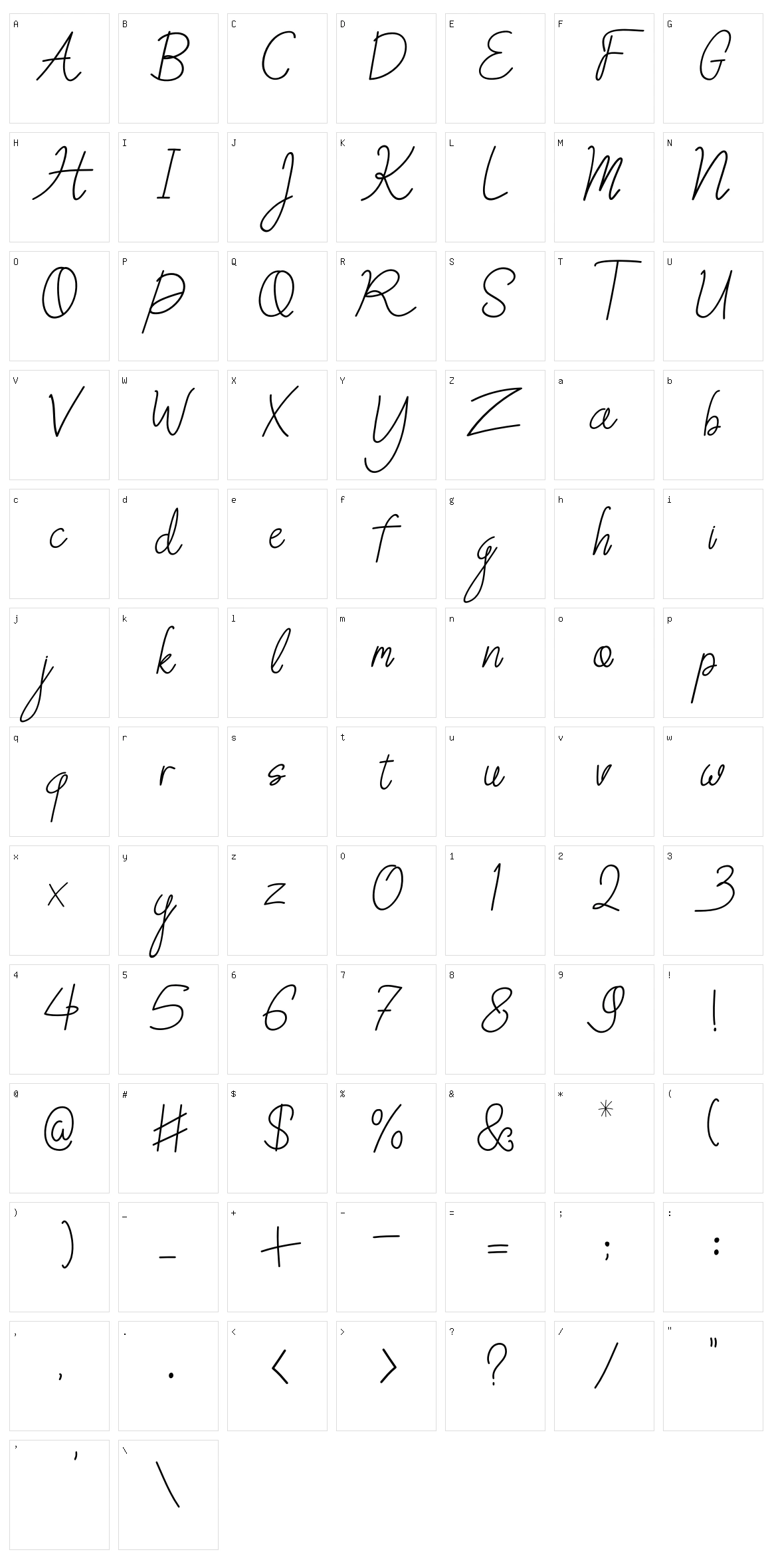
The free font Sweet Petunia is carefully designed by Rifky Naufaldy, showcasing a thoughtful balance of creativity and usability and falls under the Script font style. When you download the ZIP file, it contains only 261.66 KB of font files, making it lightweight and quick to download. Please review the license details below to understand permitted usage and distribution rights. If license information is not available, we recommend using this font for personal projects only or contacting the author directly for commercial usage permissions.